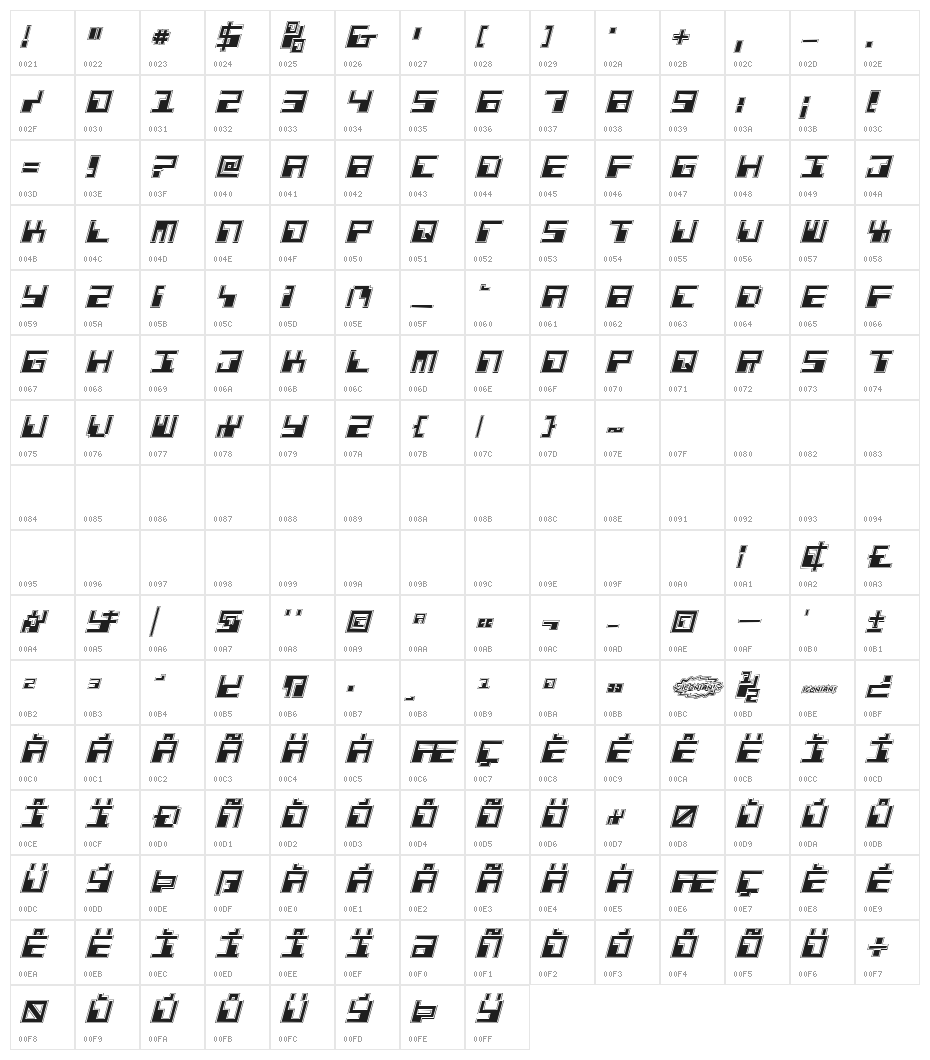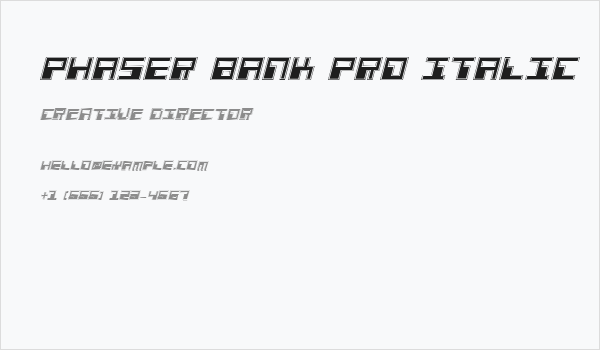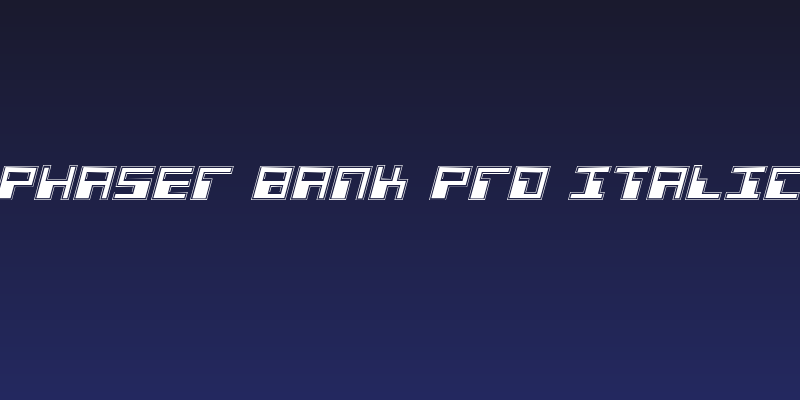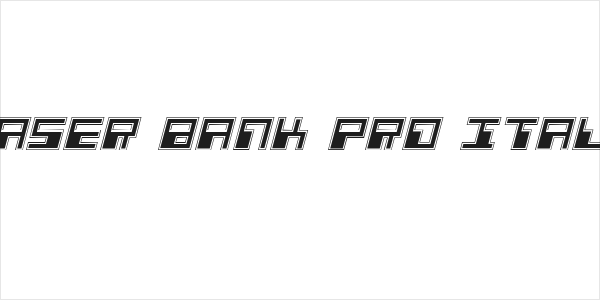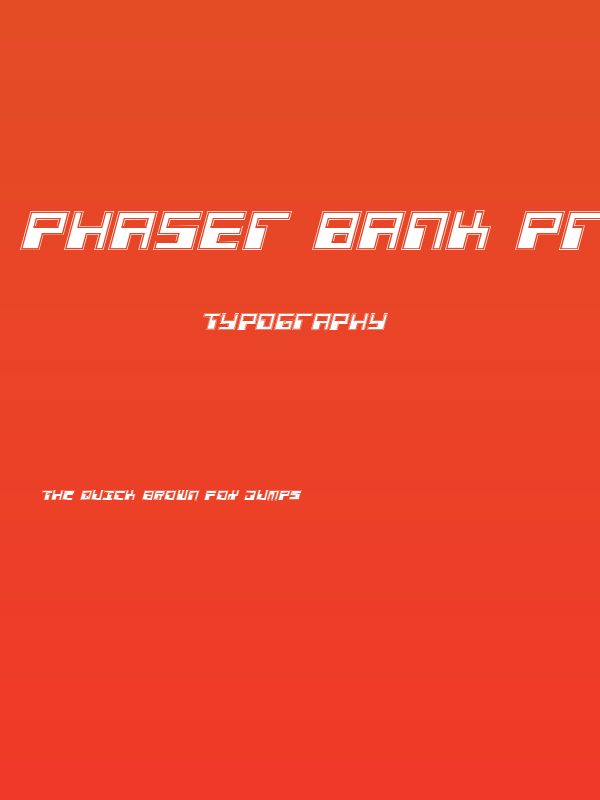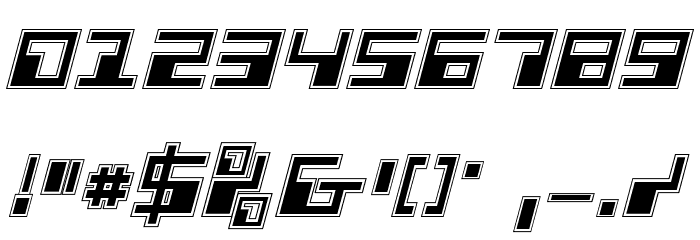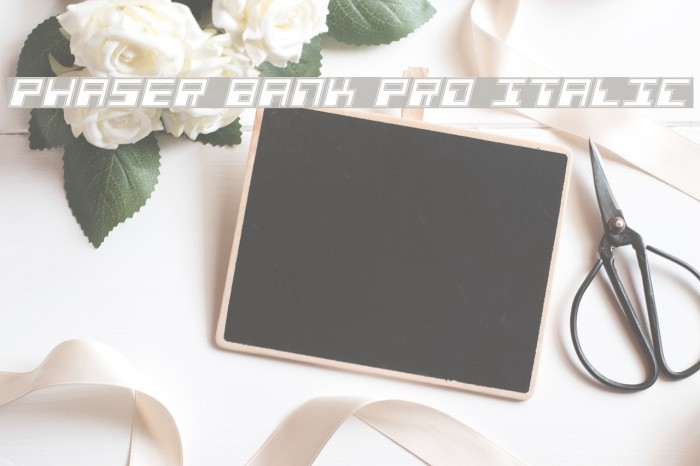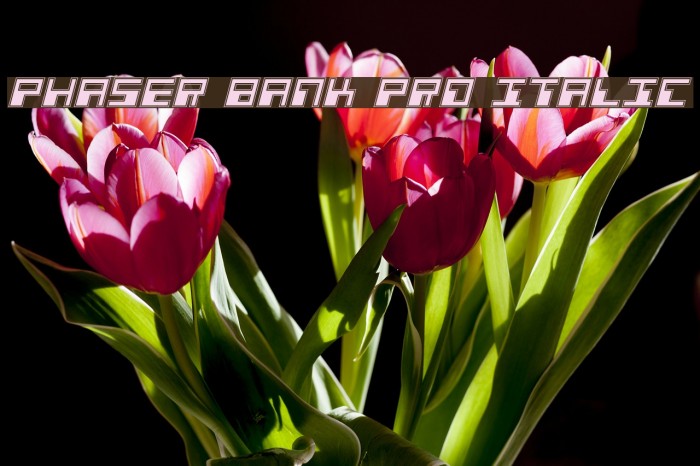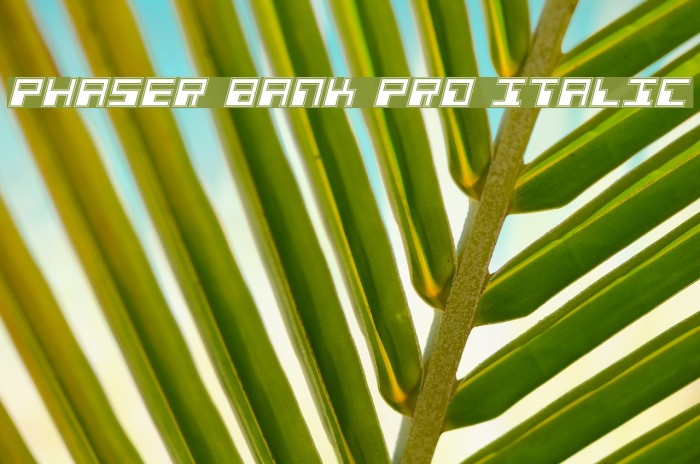
Phaser Bank Pro Italic Font
Phaser Bank Pro Italic Description
This font features a bold and futuristic design with a distinct italic slant, giving it a dynamic and energetic appearance. The characters are outlined with a thick border, creating a strong visual impact. The geometric shapes and sharp angles contribute to its modern and edgy style. Each letter is uniquely crafted with a sense of movement, making it ideal for projects that require a bold statement. The font maintains a consistent weight throughout, ensuring readability while adding a touch of sophistication. Its distinctive style is perfect for creative and innovative designs.
| Proposed Projects | Ideal for sci-fi themed designs, video game titles, tech branding, and futuristic posters. |